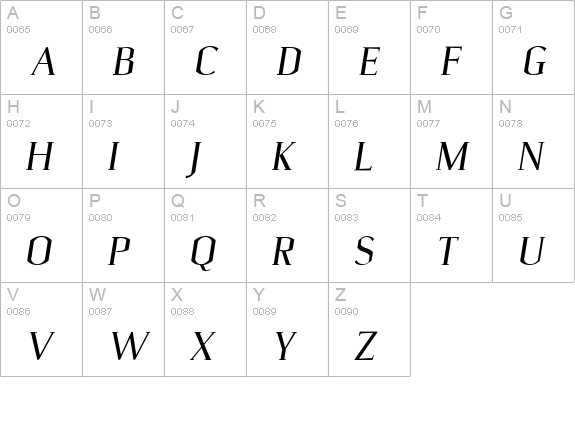
Ulian Italic Font Details
Ulian Italic is a distinctive, italic variant in the Ulian typeface family \xE2\x80\x94 well suited to design and typography projects.
Introducing Ulian Italic font - a sophisticated and stylish typeface that exudes elegance and charm. With its sleek and graceful curves, Ulian Italic is perfect for adding a touch of sophistication to any design project. This font is ideal for creating invitations, branding materials, posters, and more. What makes Ulian Italic font even more appealing is that it is available for free download at FontsMarket.com. Now you can elevate your designs with this stunning font without any cost. Don't miss out on the opportunity to add Ulian Italic to your font collection and bring a touch of elegance to your projects. Download it today and start creating beautiful designs effortlessly.